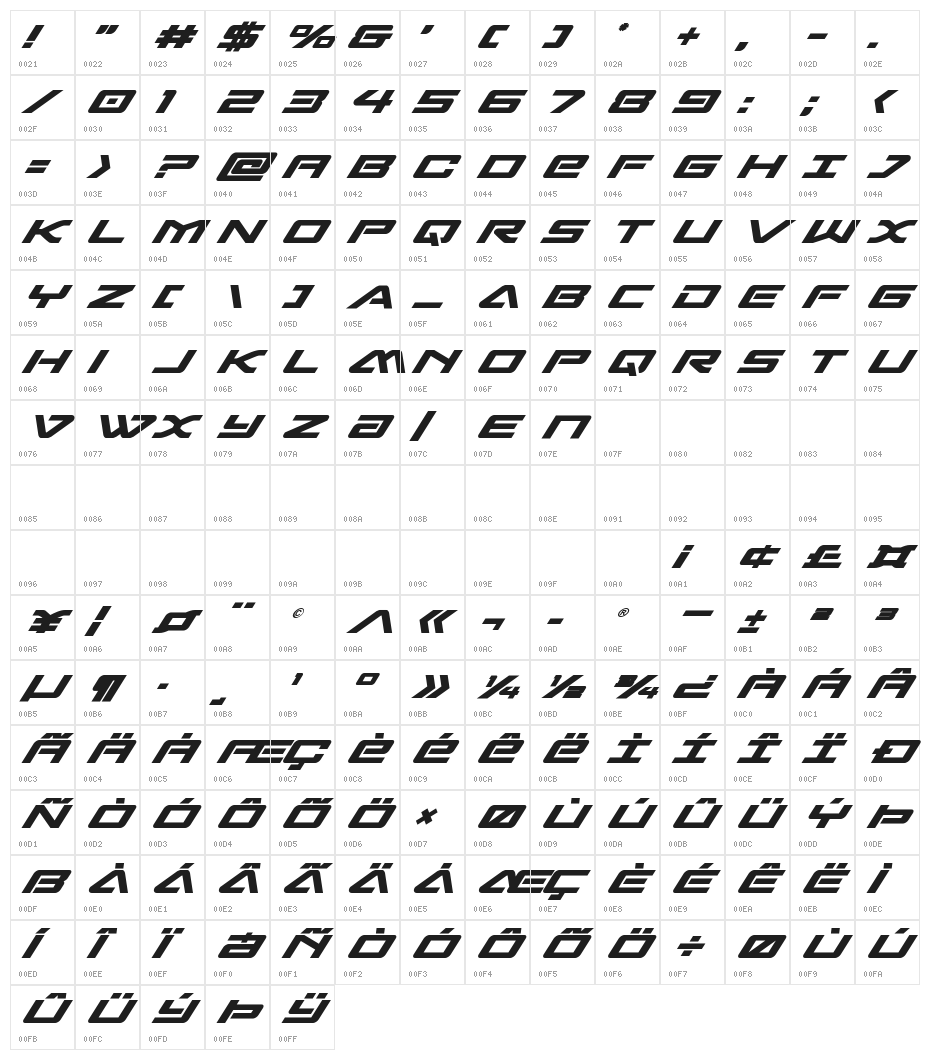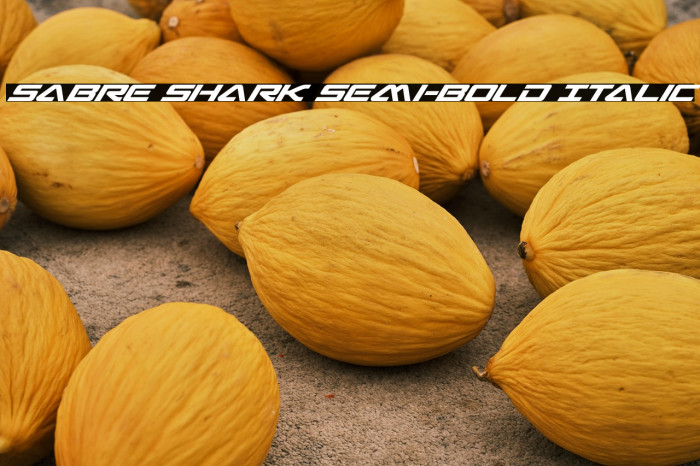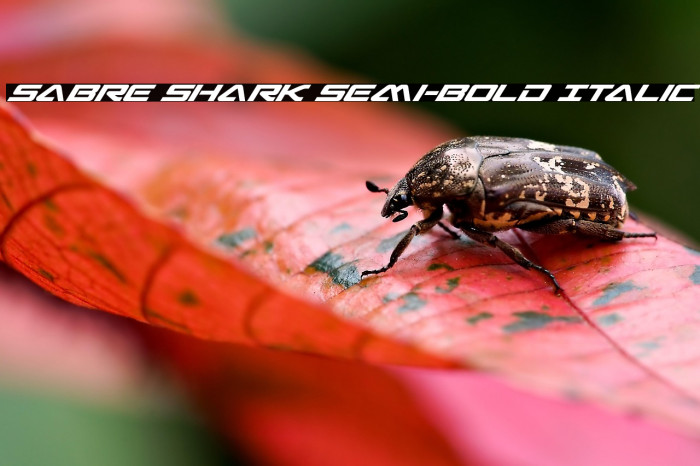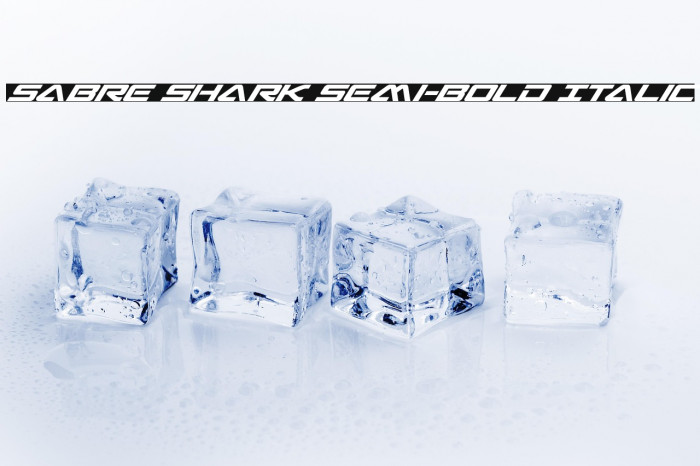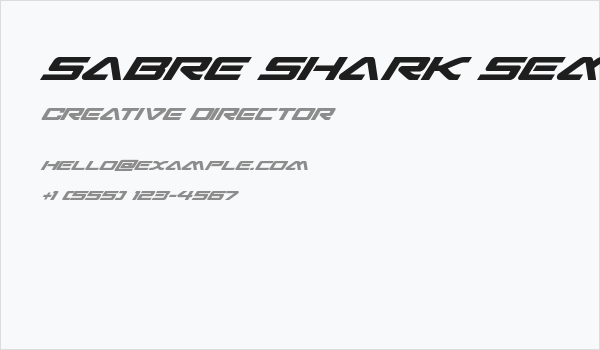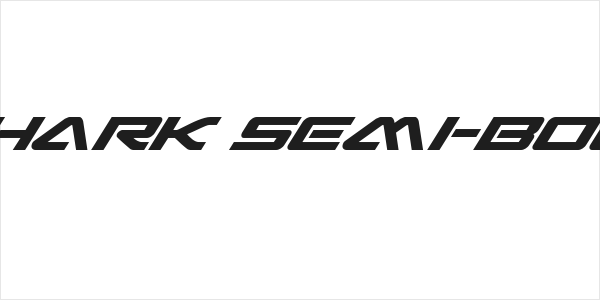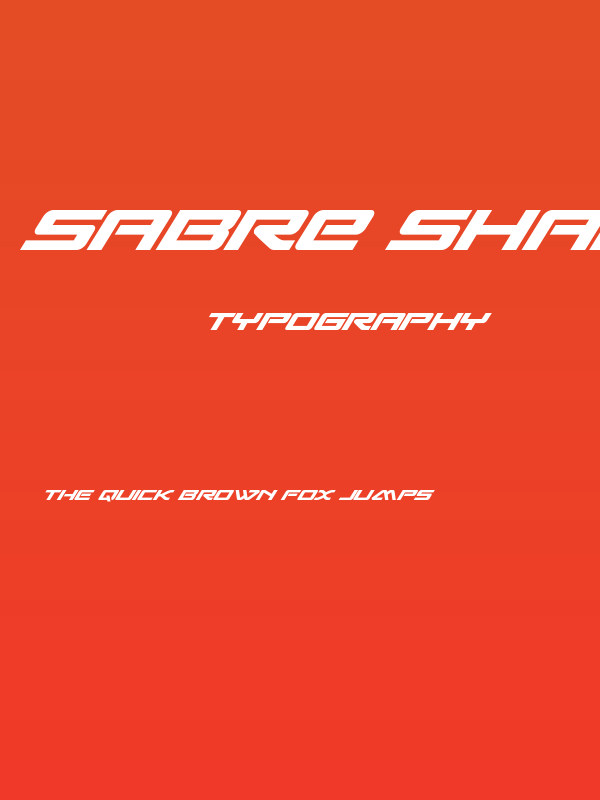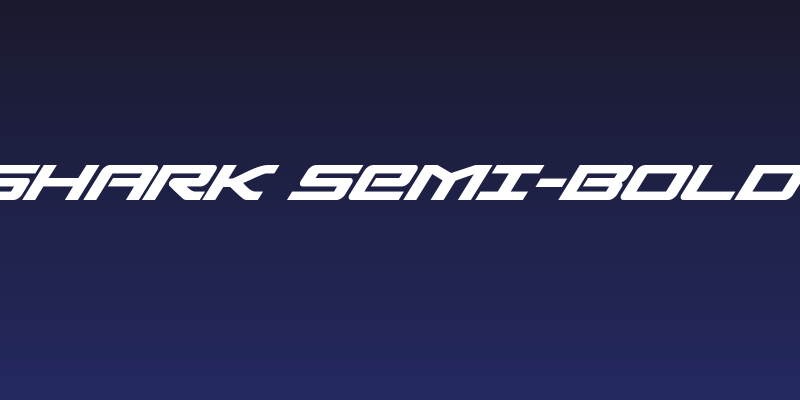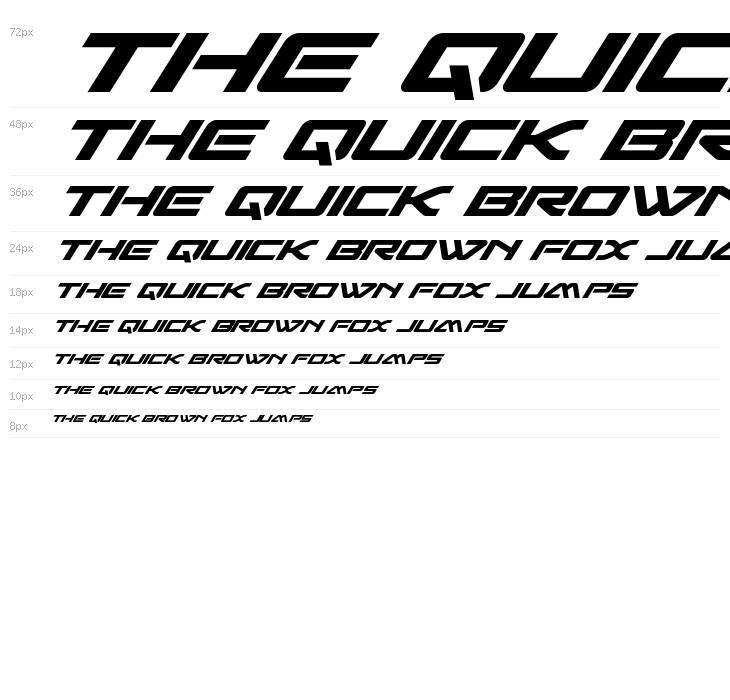
Sabre Shark Semi-Bold Italic Font
Sabre Shark Semi-Bold Italic Description
This font features a dynamic and futuristic design, characterized by sharp angles and a forward-leaning italic style. The semi-bold weight gives it a strong presence, while the italic slant adds a sense of motion and speed. The characters are tightly spaced, enhancing its compact and energetic appearance. The high contrast between thick and thin strokes contributes to its bold and eye-catching look. This font is ideal for projects that require a modern and edgy aesthetic, such as technology branding, sports team logos, or dynamic advertising campaigns.
| Use Case | Logos, Headlines |
| Proposed Projects | Ideal for technology branding, sports logos, and dynamic advertising. |